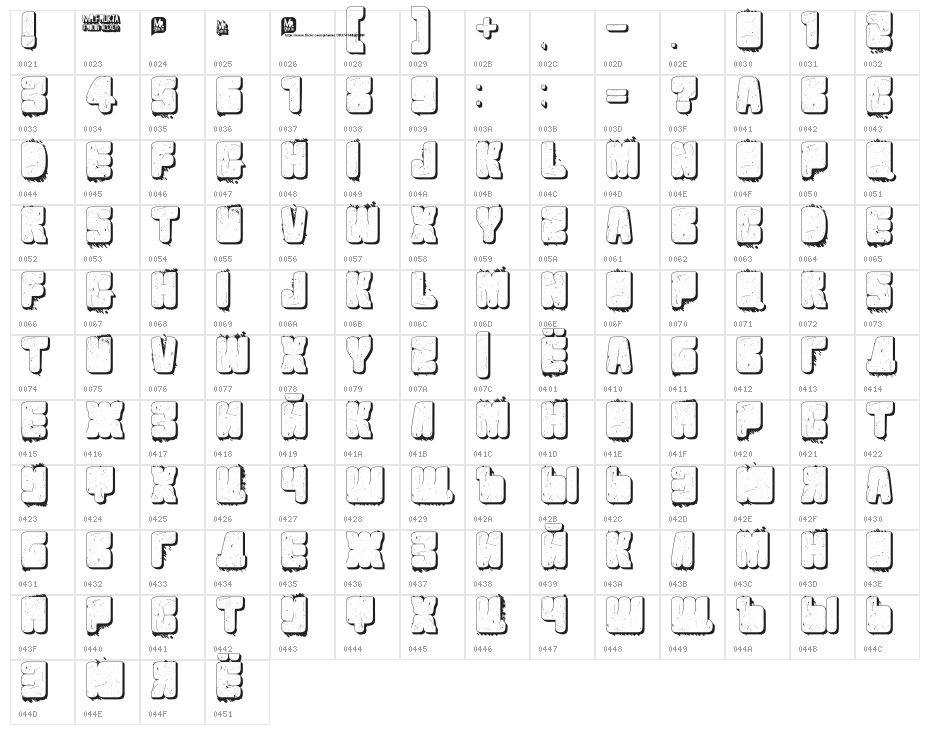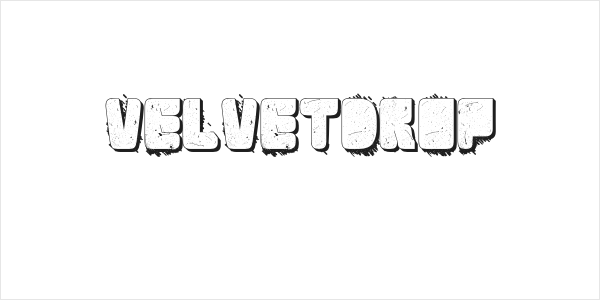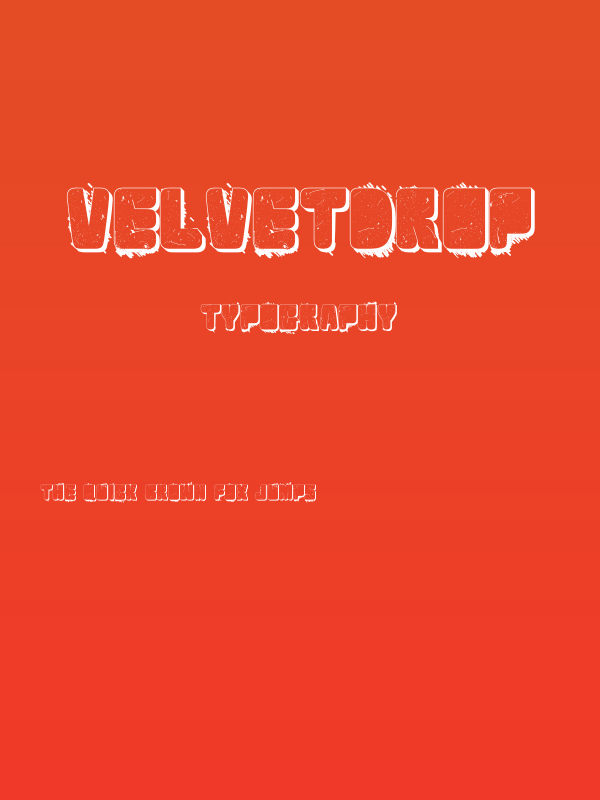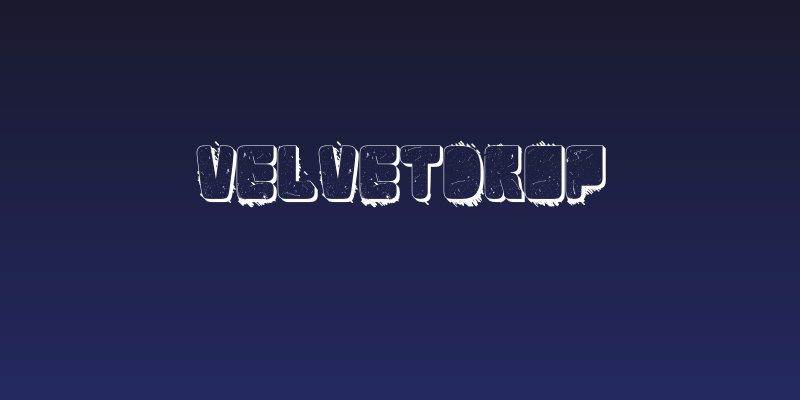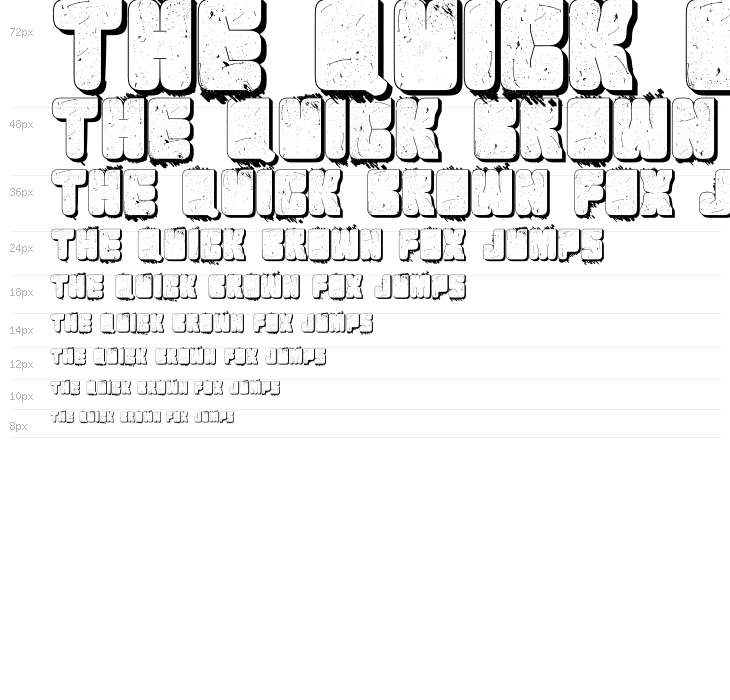
VelvetDrop Font
VelvetDrop Description
This font features a bold, decorative style with a distressed texture that gives it a rugged, vintage appearance. The characters are blocky and substantial, with a three-dimensional effect created by the use of shadows and highlights. Each letter and number is uniquely textured, adding to the overall gritty aesthetic. The font is highly stylized, making it ideal for projects that require a strong visual impact. Its playful yet edgy design is perfect for creative and artistic applications.
| Overall Style | Vintage, Decorative |
| Proposed Projects | Ideal for poster designs, album covers, branding for edgy products, or any project needing a strong, artistic statement. |